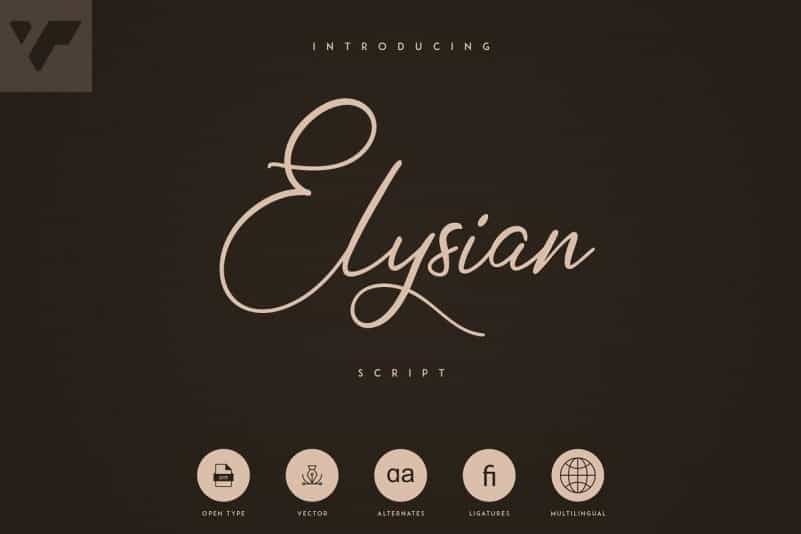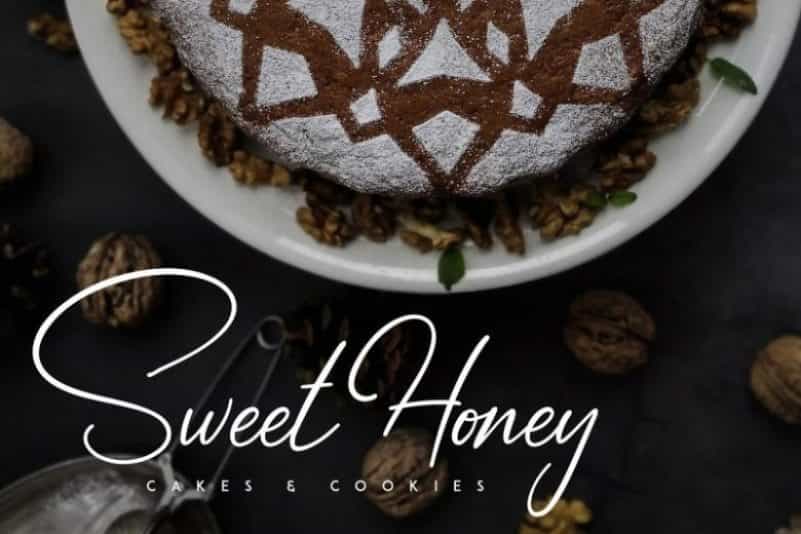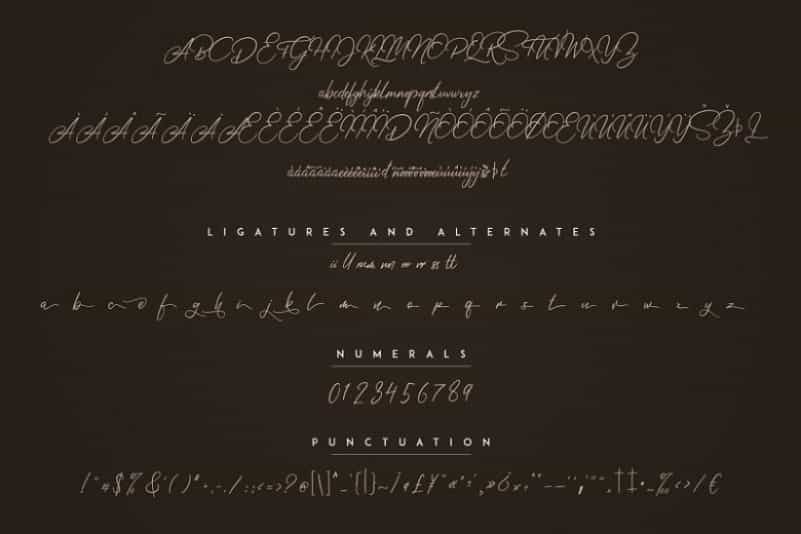
Elysian a natural, hand-drawn script font. You can also get alternates, ligatures etc., and it supports multilingualism too. It’s a very beautiful type that works well both big and small. Elysian is perfect for branding projects, home-ware designs, product packaging, magazine headers – or simply as a stylish text overlay to any background image.